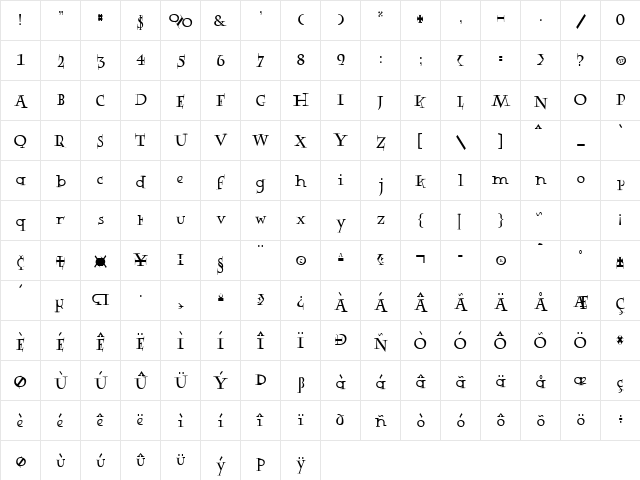
Rowling Stone Narrow Regular
Design Context for Rowling Stone Narrow Typeface
Rowling Stone Narrow is a composed and adaptable typeface that performs quietly and consistently across a wide range of design contexts. Its narrow stance lets it pack a punch even in space-constrained designs.